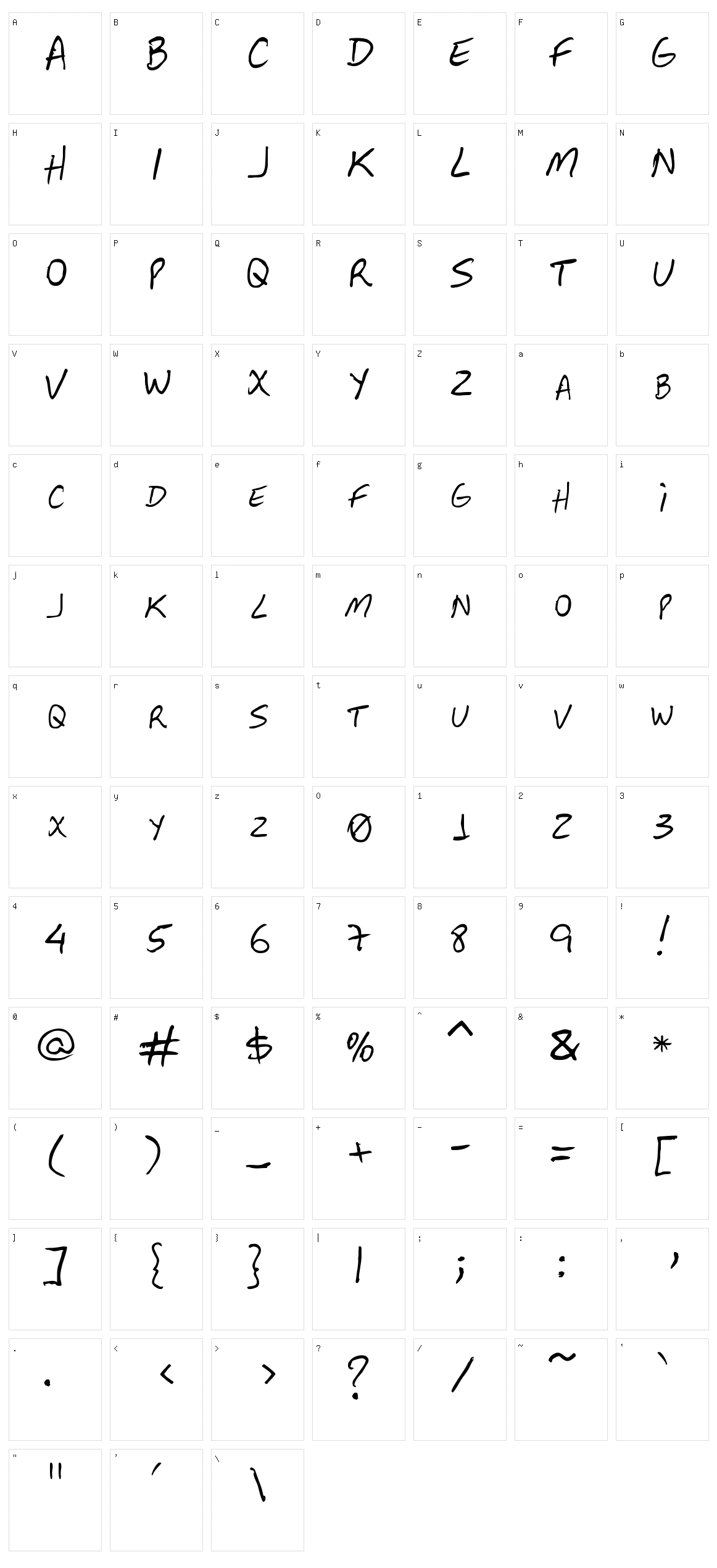
The free font Guapos is carefully designed by Jeferson Jacob de Souza, showcasing a thoughtful balance of creativity and usability and falls under the Script font style. When you download the ZIP file, it contains only 20.21 KB of font files, making it lightweight and quick to download. Please review the license details below to understand permitted usage and distribution rights. If license information is not available, we recommend using this font for personal projects only or contacting the author directly for commercial usage permissions.